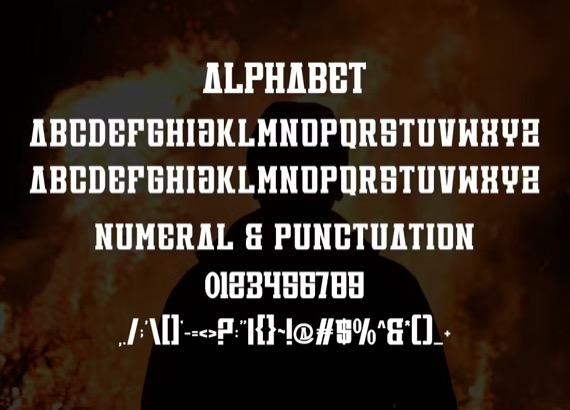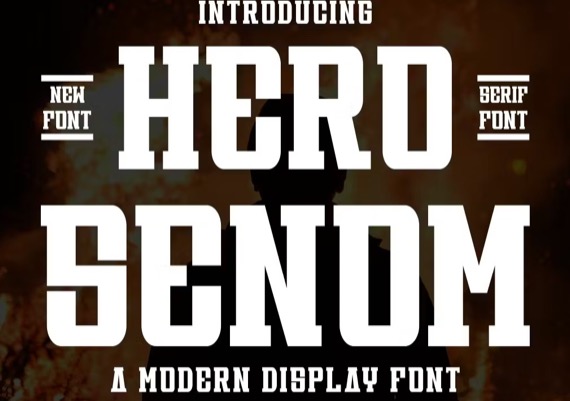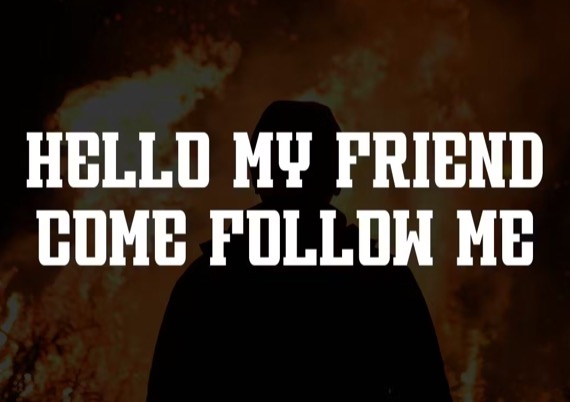
Introducing Hero Senom Font, it’s an elegant and modern serif typeface that is perfect and ideal for displaying headlines, Logos, branding, magazines, product packaging and invitations. It features clean lines and gentle curves that give any project an extra touch of class
Hero Senom Slab Serif Font